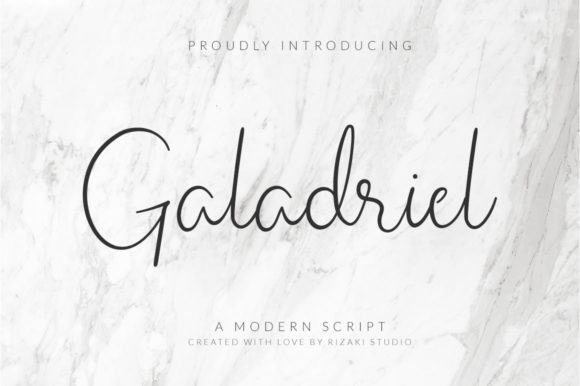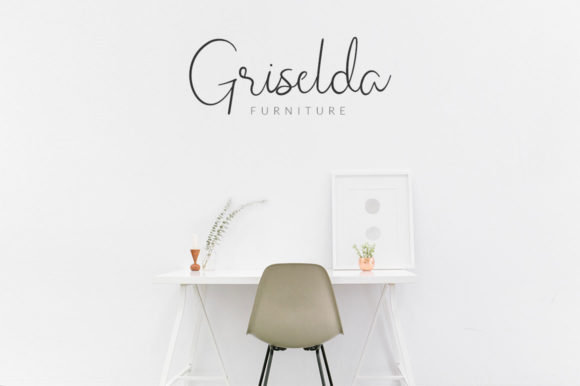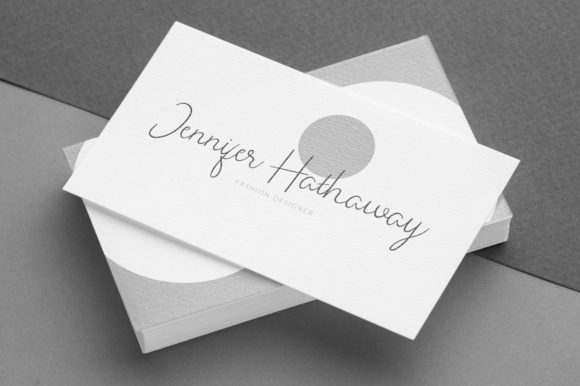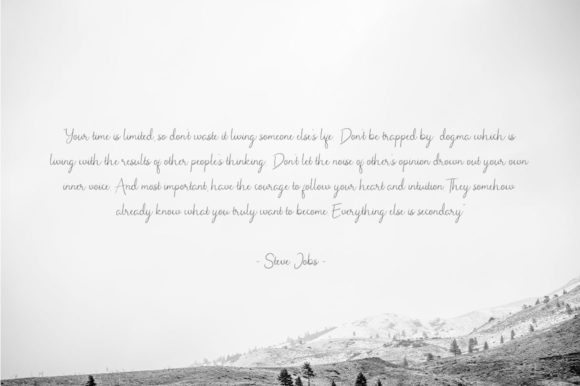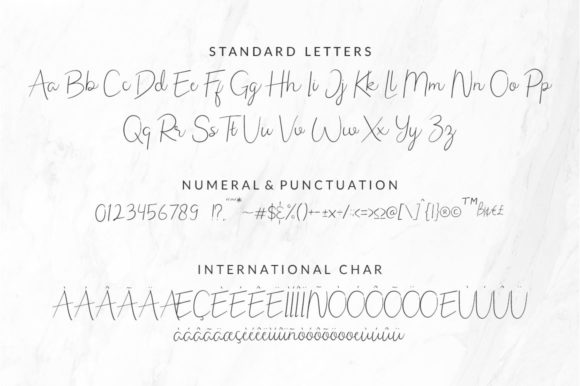
Galadriel Script Font
About Galadriel Script Font
Galadriel Script is a stylish and delicate script font that exudes elegance and sophistication. With its clean, thin, and smooth vibe, it is a versatile font that can enhance various design projects.
The well-balanced and carefully crafted characters of Galadriel Script give it a refined and polished look. Each letter flows seamlessly into the next, creating a harmonious and graceful appearance. The script style adds a touch of sophistication, making it suitable for a wide range of design applications.
The clean and thin lines of Galadriel Script contribute to its modern and contemporary aesthetic. The minimalistic approach of the font ensures that it remains sleek and refined, allowing the other elements of your design to shine. Whether you’re creating branding materials, invitations, or promotional materials, this font will add a touch of elegance and style.
The smooth and flowing strokes of Galadriel Script give it a sense of fluidity and grace. Each letter is meticulously designed to maintain a consistent and visually appealing look. The delicate curves and loops of the font create an intricate and captivating appearance, making it a perfect choice for projects that require a touch of elegance.
Despite its delicate nature, Galadriel Script maintains excellent readability. Each character is legible and distinct, ensuring that your message is conveyed clearly. This makes it suitable for a variety of design purposes, including headlines, titles, and other prominent text elements.
Galadriel Script is a versatile font that can be used in both digital and print media. Whether you’re designing for websites, social media, or printed materials, this font will adapt beautifully to different platforms and maintain its refined look.
In summary, Galadriel Script is a stylish, well-balanced, and delicate script font with a clean, thin, and smooth vibe. It brings elegance and sophistication to your designs and can be used in various projects. If you’re looking for a font that combines grace and modernity, Galadriel Script is an excellent choice.